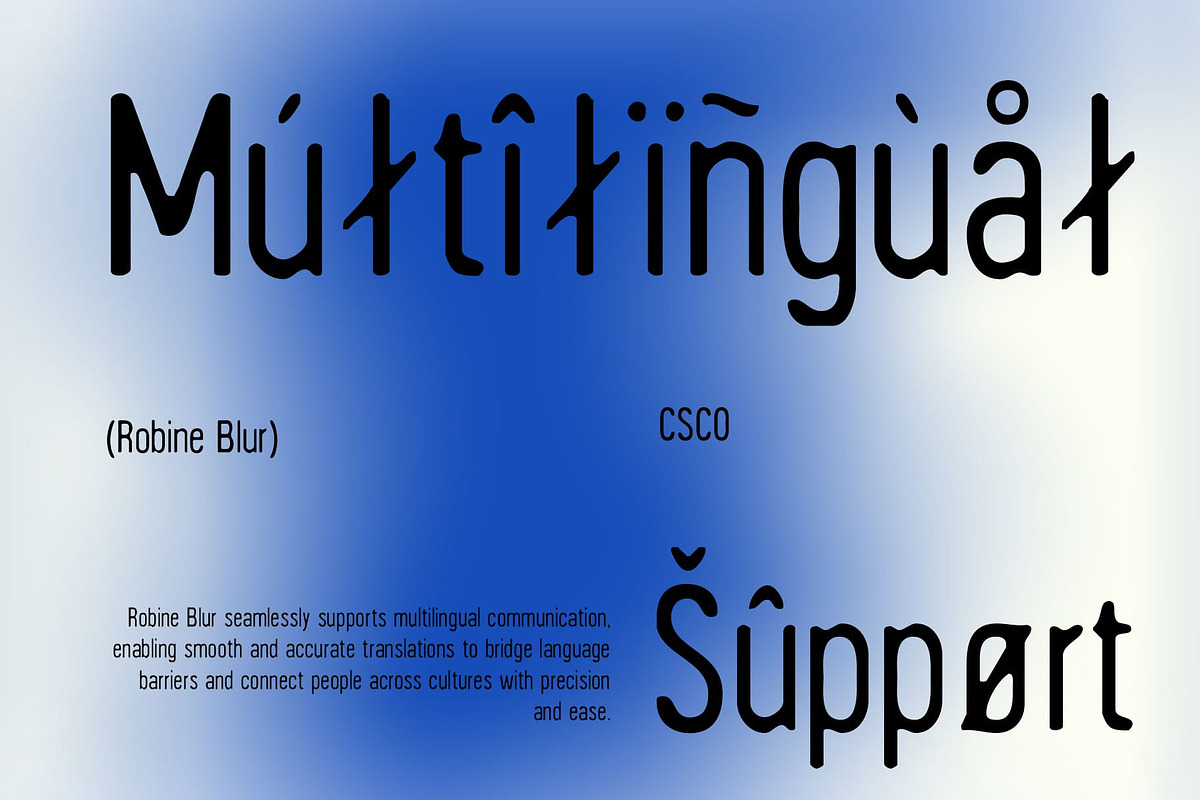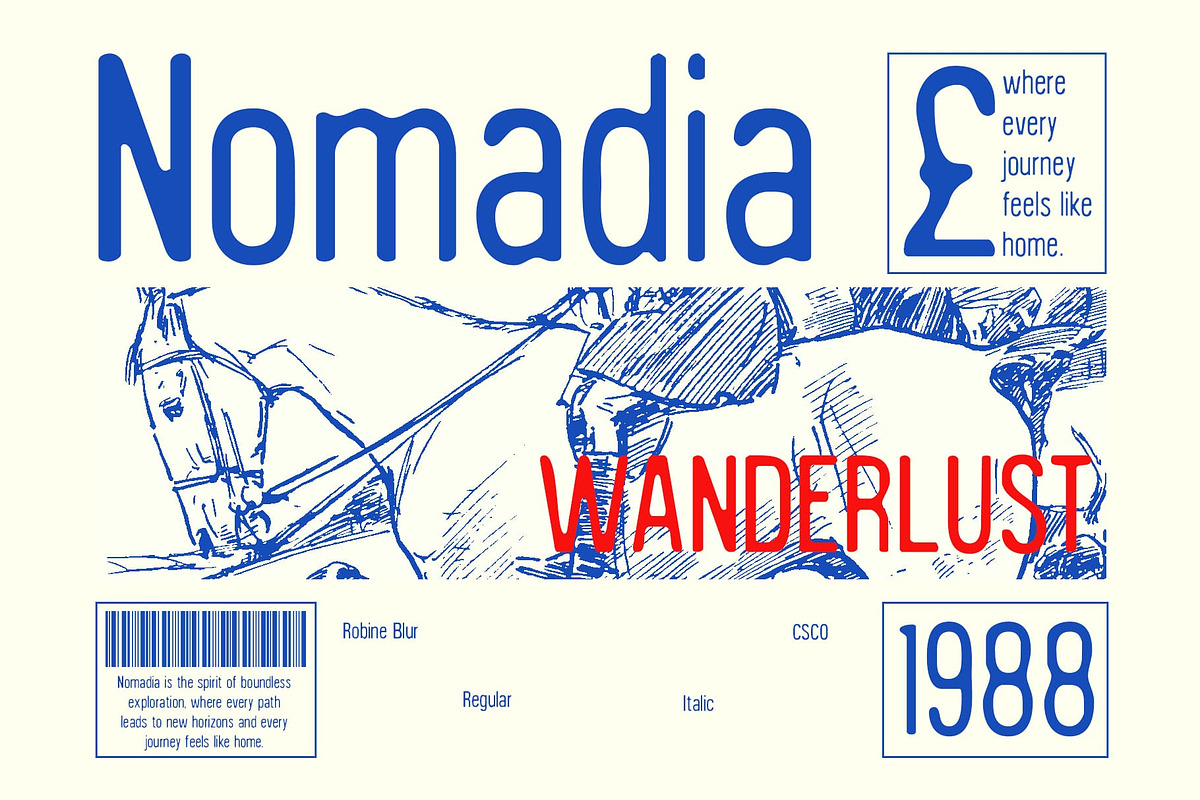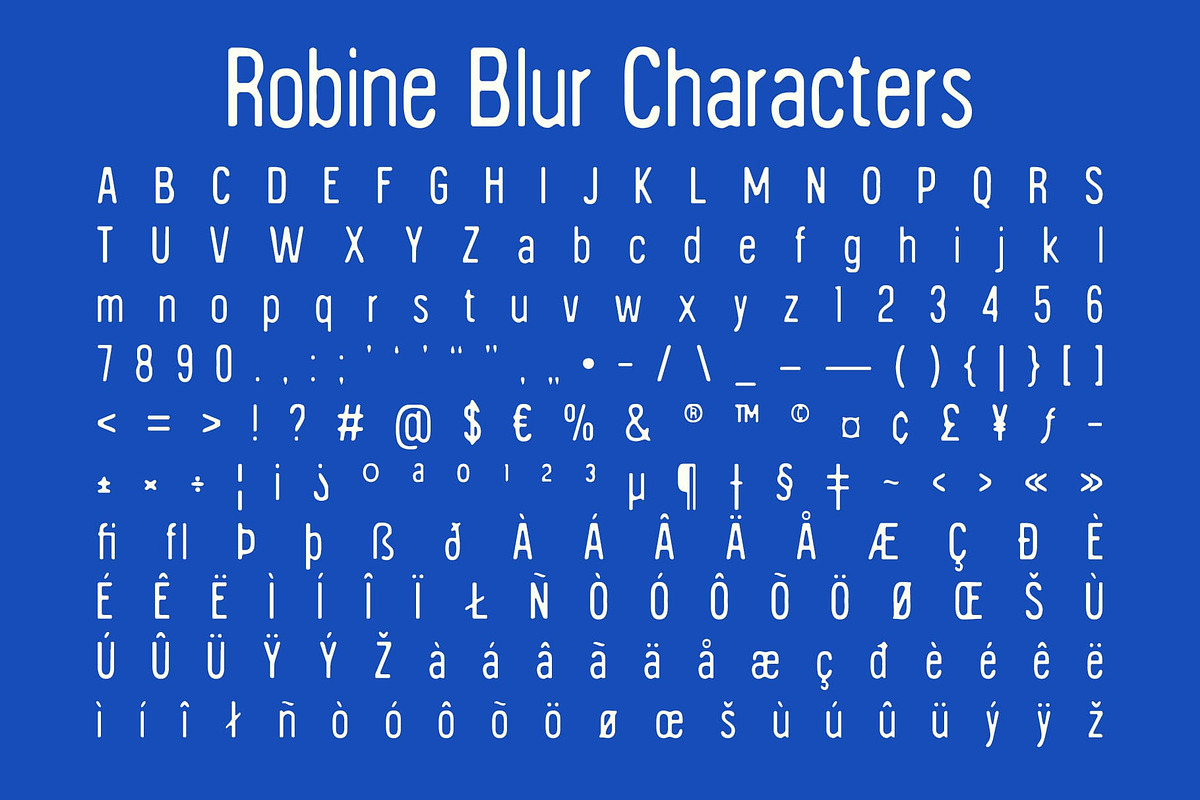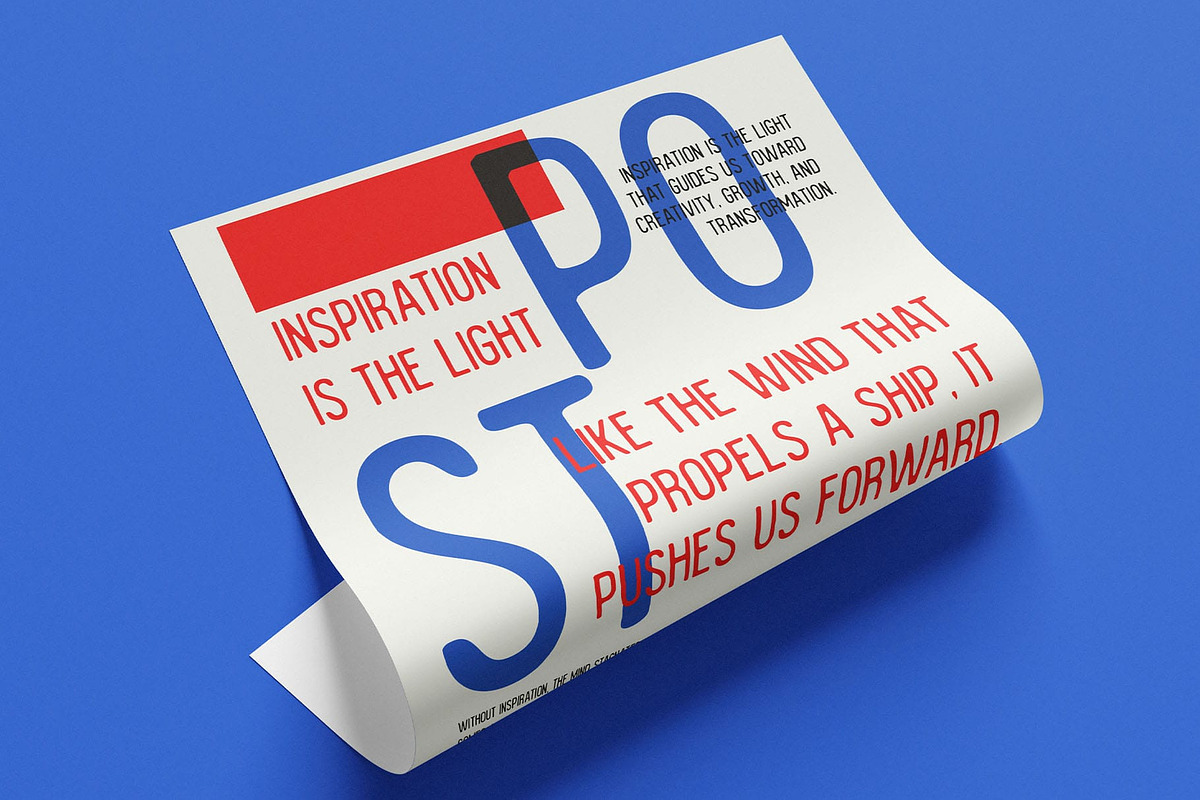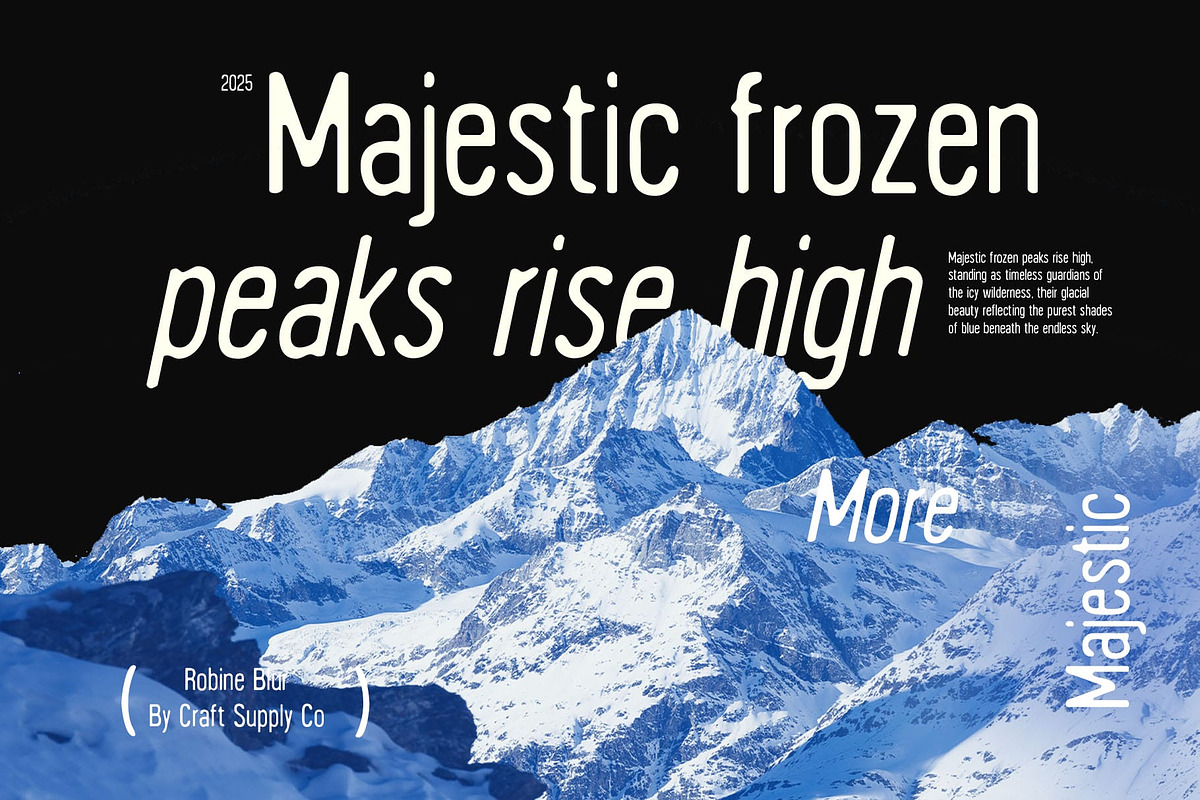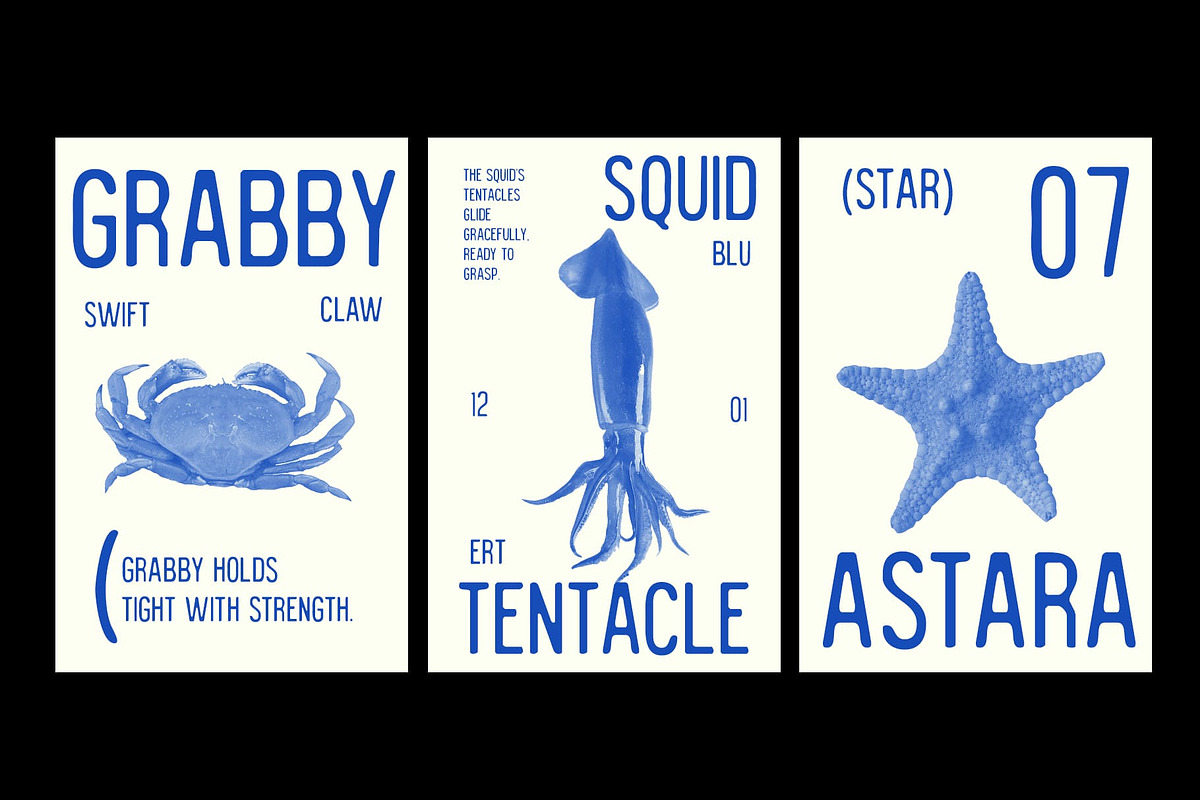
Robine Blur
Robine Blur Font: A Bold Fusion of Clarity and Distortion
Condensed Sans-Serif with a Blur Effect Robine Blur is a modern sans-serif font featuring a condensed shape and an eye-catching blur effect. Its sleek and compact letterforms create a bold, high-impact impression, while the blur effect introduces a sense of movement and distortion, adding an experimental and futuristic touch to any design.
Striking and Futuristic Aesthetic With its sharp yet softened appearance, Robine Blur captures the essence of modern digital aesthetics. The interplay between crisp lines and blurred edges results in a font that feels dynamic and cutting-edge, making it ideal for tech-inspired visuals, avant-garde projects, and bold branding statements.
Perfect for Standout Display Designs Designed to command attention, Robine Blur thrives in display settings such as posters, album covers, advertising, and editorial headlines. Its condensed form ensures maximum impact in limited spaces, while the blur effect enhances its uniqueness, making it perfect for designers looking to push creative boundaries.
A Typeface for Innovative and Experimental Projects Whether for modern branding, futuristic themes, or edgy promotional materials, Robine Blur delivers a one-of-a-kind visual experience. It’s the perfect choice for creatives who want to break conventions and make a lasting impression with a font that blends precision with artistic distortion.